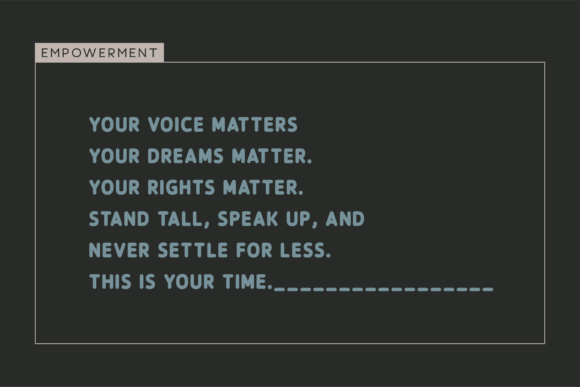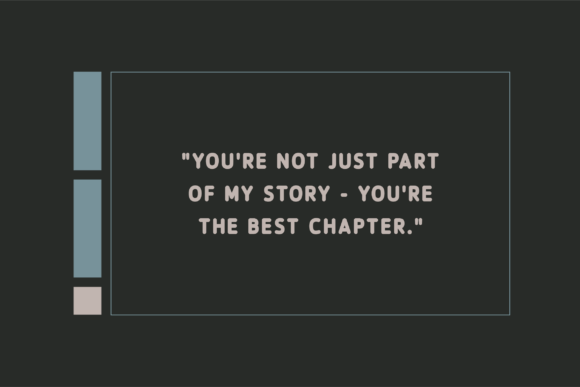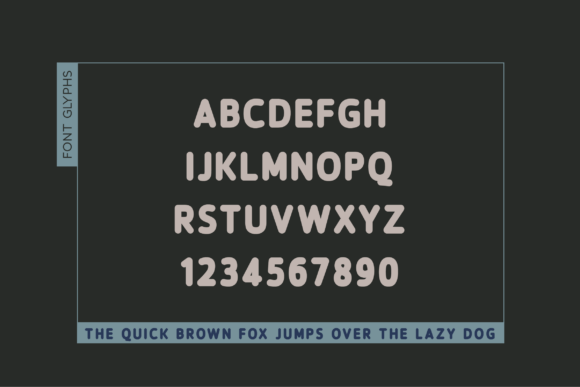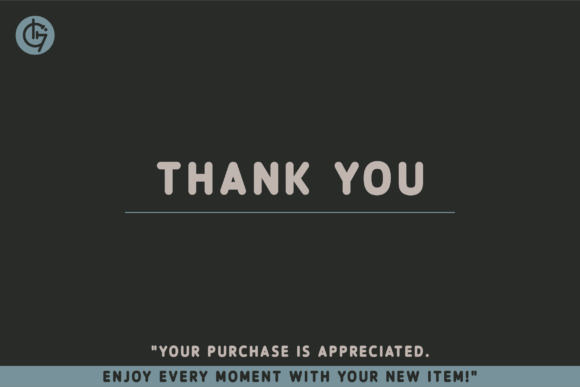
Discover the Whimsical Charm of Alvagen Font
I’ll never forget the design moment when I stumbled upon Alvagen Font. I was working on a project for a client who needed a unique and playful touch for their social media graphics. As I scrolled through my font library, I found myself stuck, unable to find the perfect fit. That’s when I discovered Alvagen – an all-caps sans-serif display font that instantly caught my attention with its quirky charm and smooth lines.
A Personal Review of Alvagen Font
What I Love About Alvagen ✨
- ✅ Complete Character Set: Alvagen offers a full set of capital letters A-Z, numbers 0-9, punctuation marks, and accented characters, giving you endless artistic possibilities.
- ✅ Simplicity and Smoothness: The font’s clean and smooth design makes it perfect for a wide range of creative projects, from social media graphics to craft projects.
- ✅ Whimsical Charm: Alvagen’s quirky personality adds a unique flair to every piece of work, making it ideal for designers looking to add a touch of vitality to their designs.
- ⚠️ All-Caps Design: As an all-caps font, Alvagen might not be the best choice for body text or long paragraphs.
- ⚠️ Limited Font Weights: Alvagen’s simplicity and charm come with limited font weights, which might restrict its use in certain design scenarios.
The Story Behind Alvagen Font
Alvagen Font was designed with the intention of creating a unique and playful typeface that would add a touch of vitality to any design. Inspired by the simplicity and smoothness of sans-serif fonts, Alvagen’s designer aimed to create a font that would be both quirky and elegant. With its complete character set and range of OpenType features, Alvagen has become a go-to font for designers looking to add a dash of whimsy to their work.
| Font Name | Alvagen Font |
| Author | Goliatte Studio |
Q: What is Alvagen Font?
A: Alvagen Font is an all-caps sans-serif display font designed to add a touch of whimsy and vitality to any design.
Q: Is Alvagen suitable for body text?
A: Due to its all-caps design, Alvagen might not be the best choice for body text or long paragraphs. It’s ideal for headlines, titles, and short text elements.
Q: Can I use Alvagen on social media?
A: Absolutely! Alvagen Font is perfect for social media graphics, and its simplicity and smoothness make it easy to read on various devices.